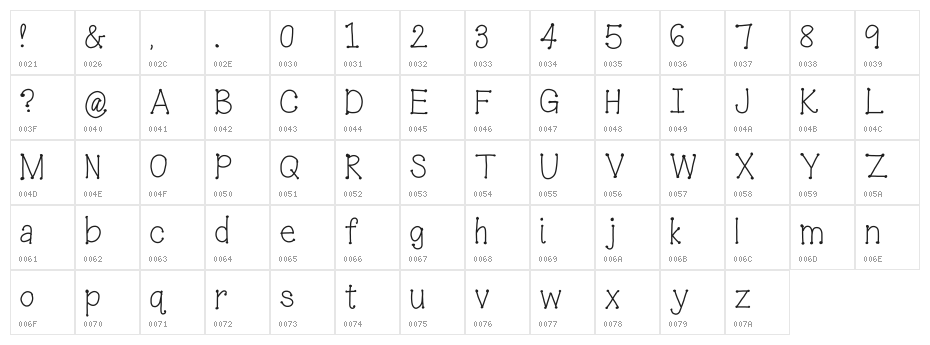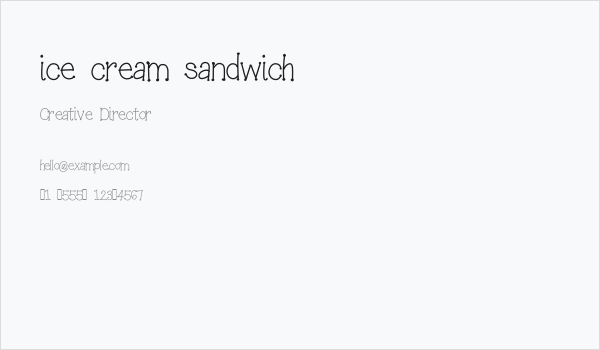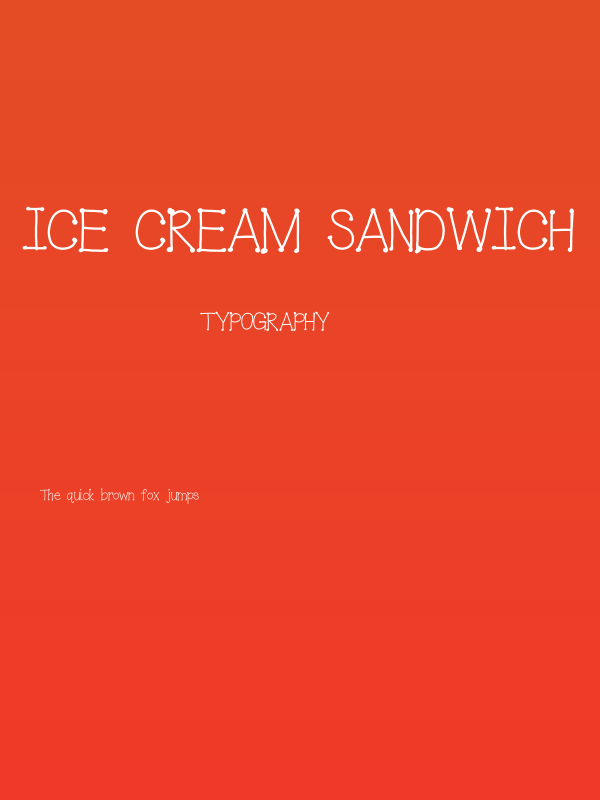
ice cream sandwich Font
ice cream sandwich Description
This playful and whimsical font features a unique design with rounded edges and small dots at the end of each stroke, giving it a fun and informal appearance. The characters are evenly spaced, with a consistent stroke width that maintains readability while adding a touch of creativity. The uppercase and lowercase letters are distinct yet harmonious, making it suitable for a variety of uses. Numbers and special characters are included, maintaining the same playful style. This font is ideal for projects that require a lighthearted and approachable feel.
| Proposed Projects | Ideal for children's books, playful branding, party invitations, and casual greeting cards. |